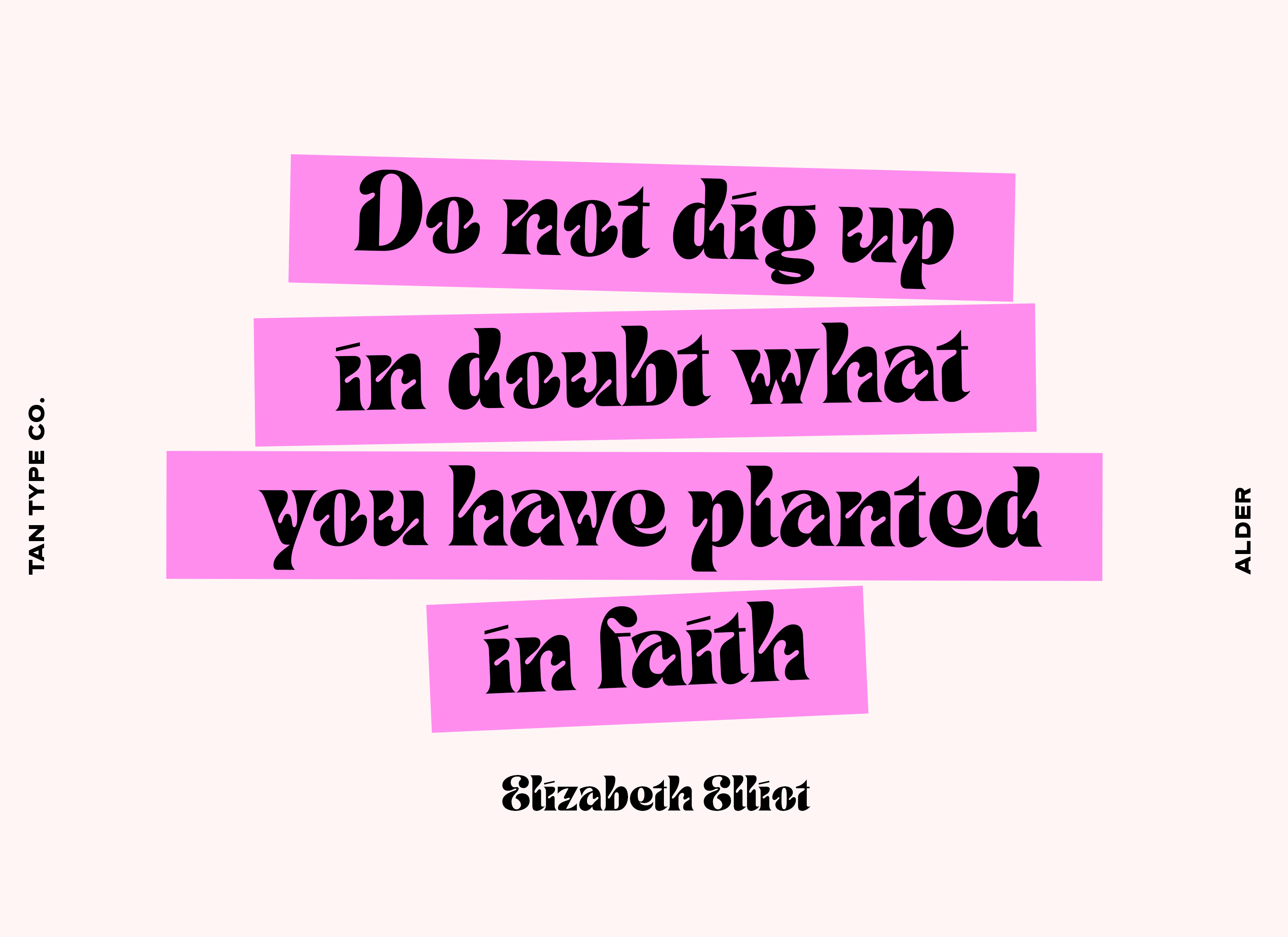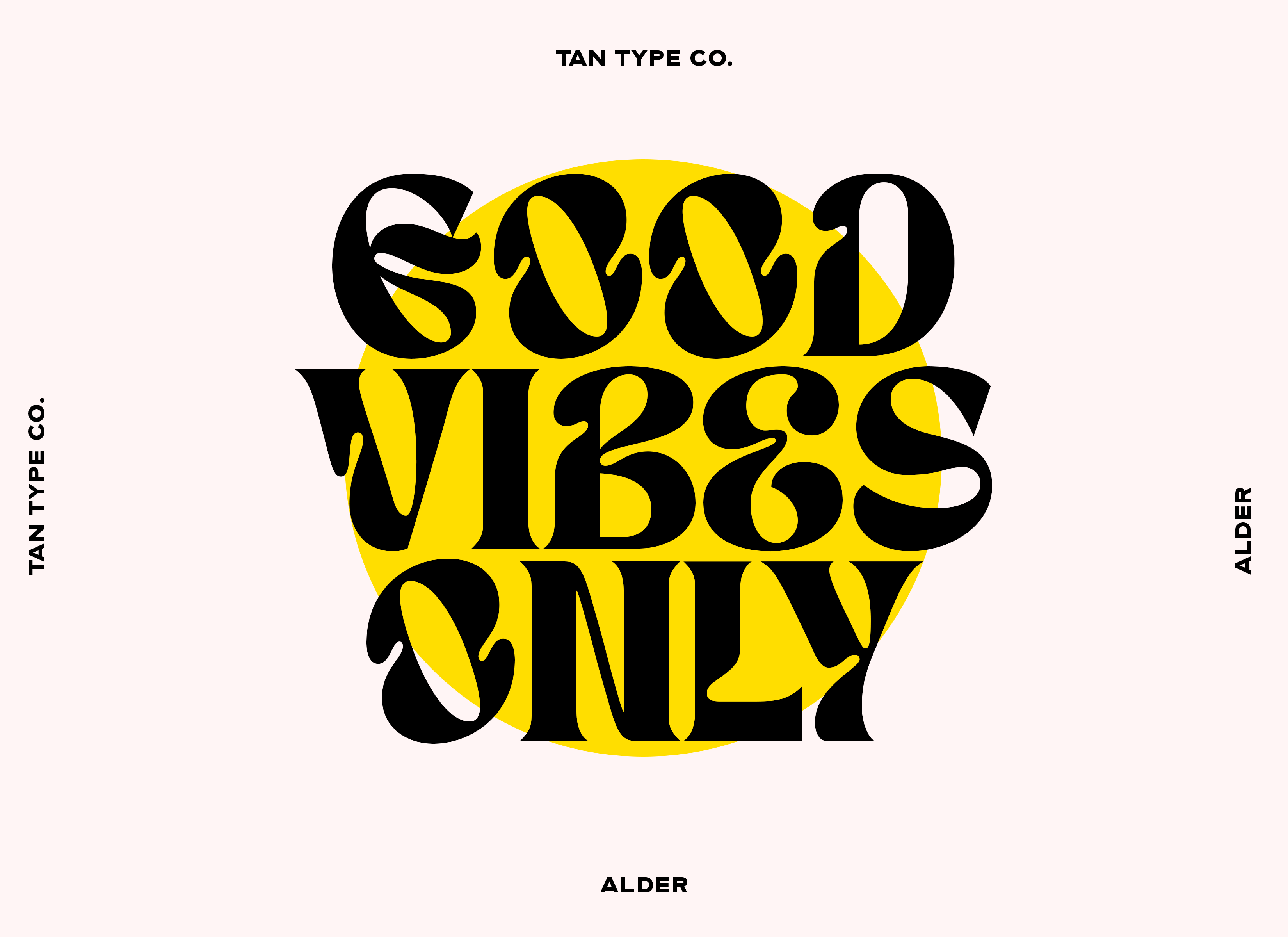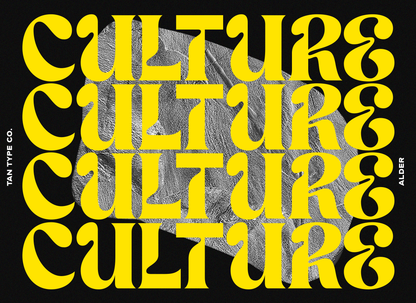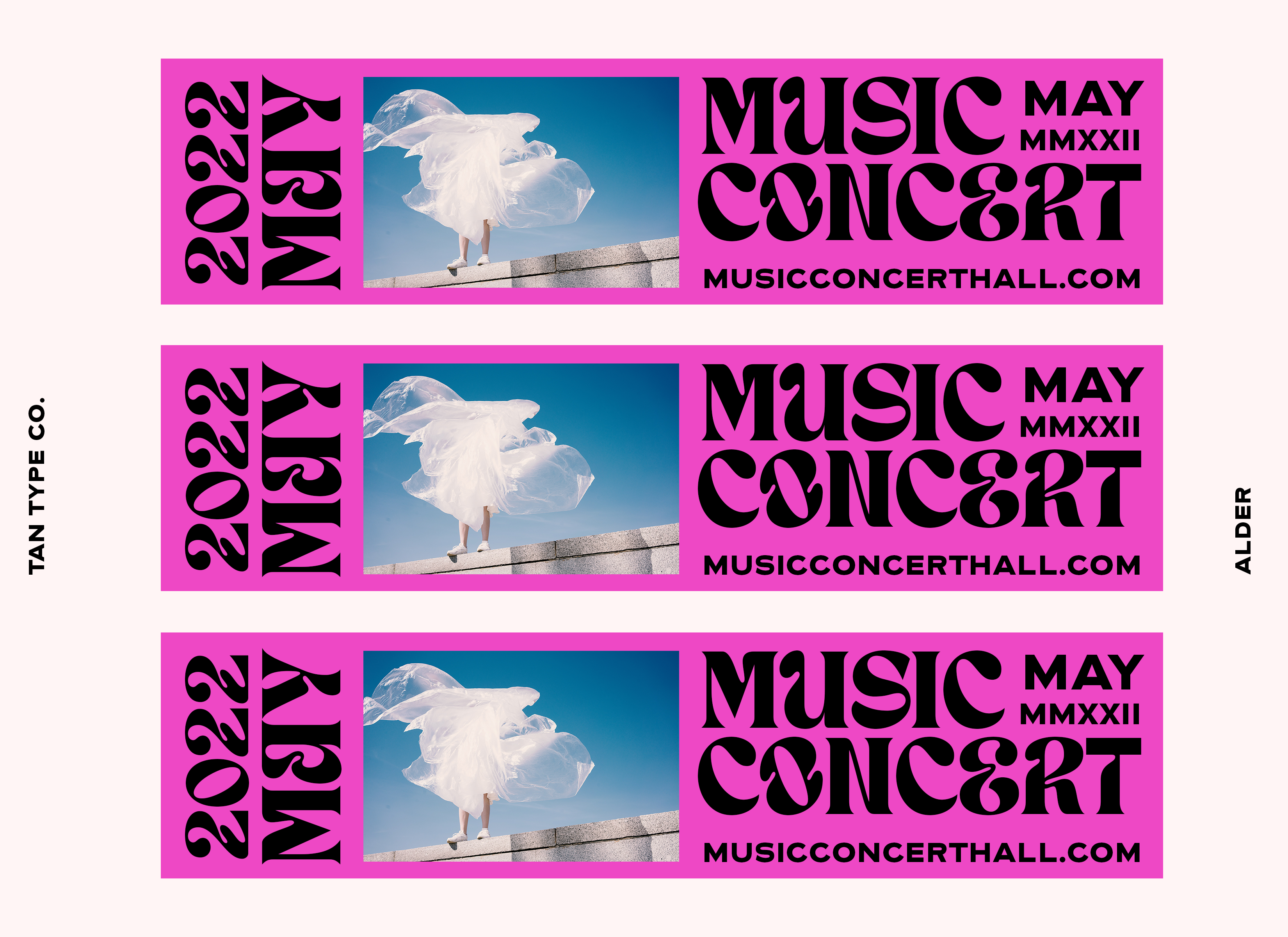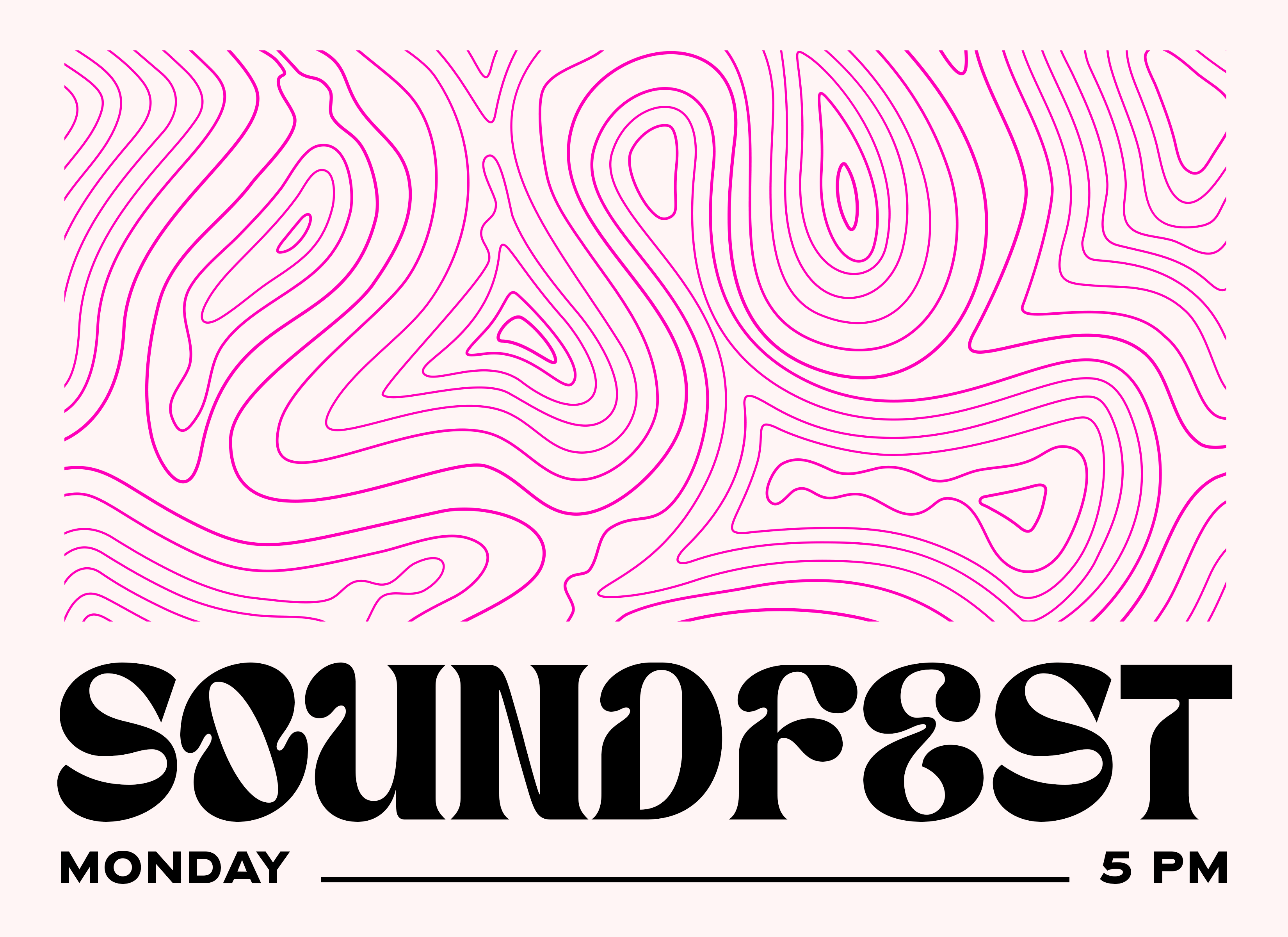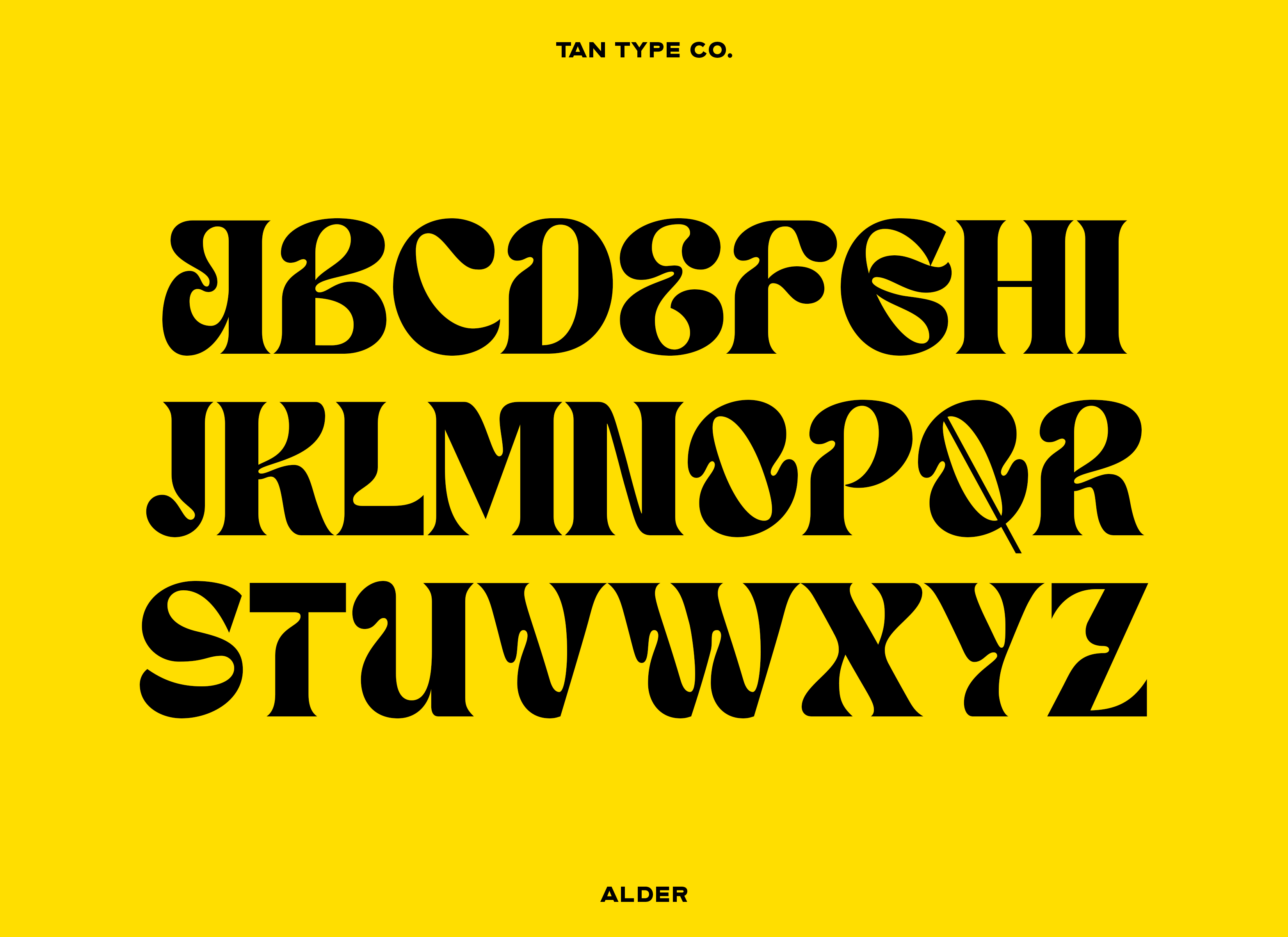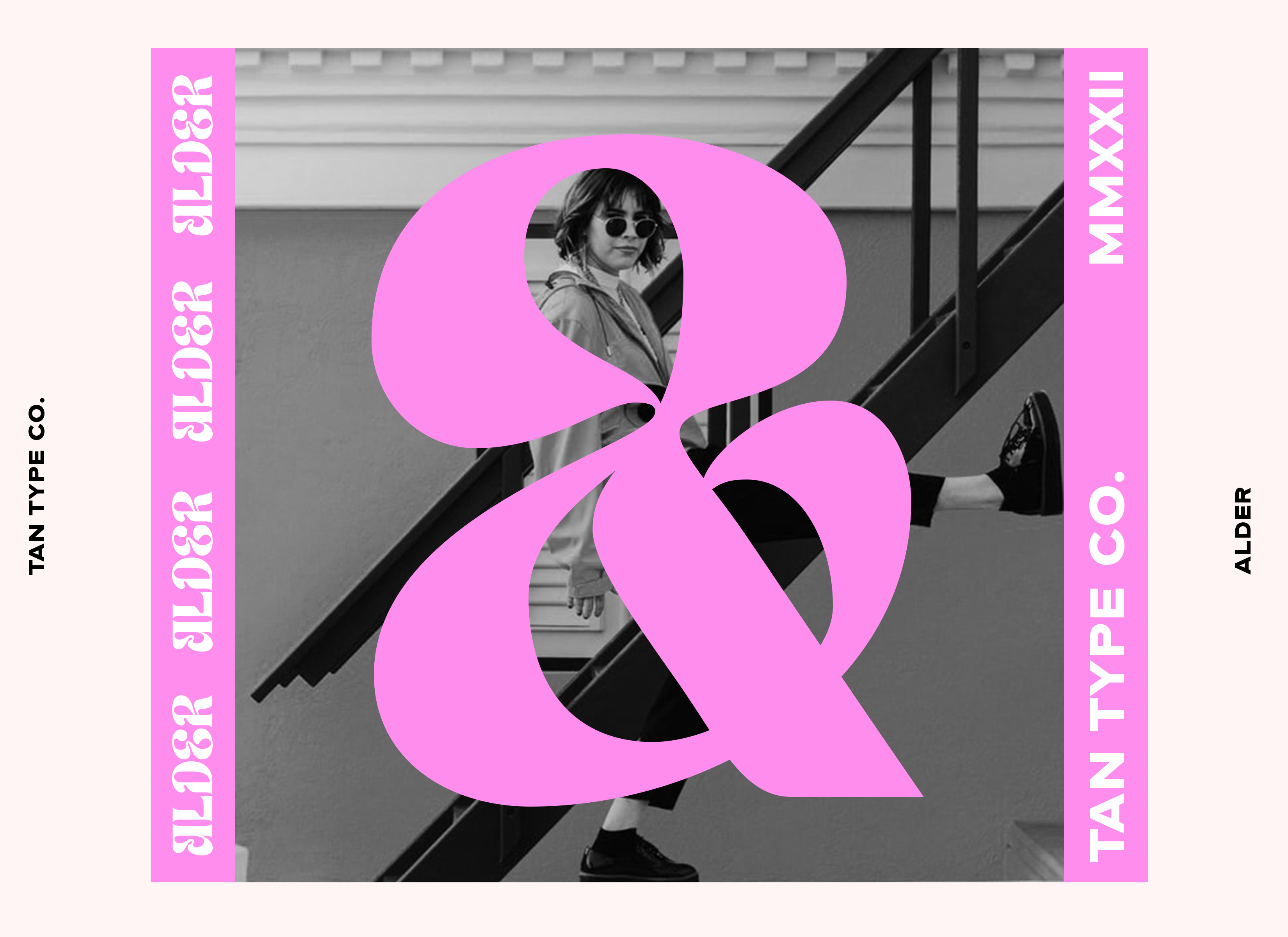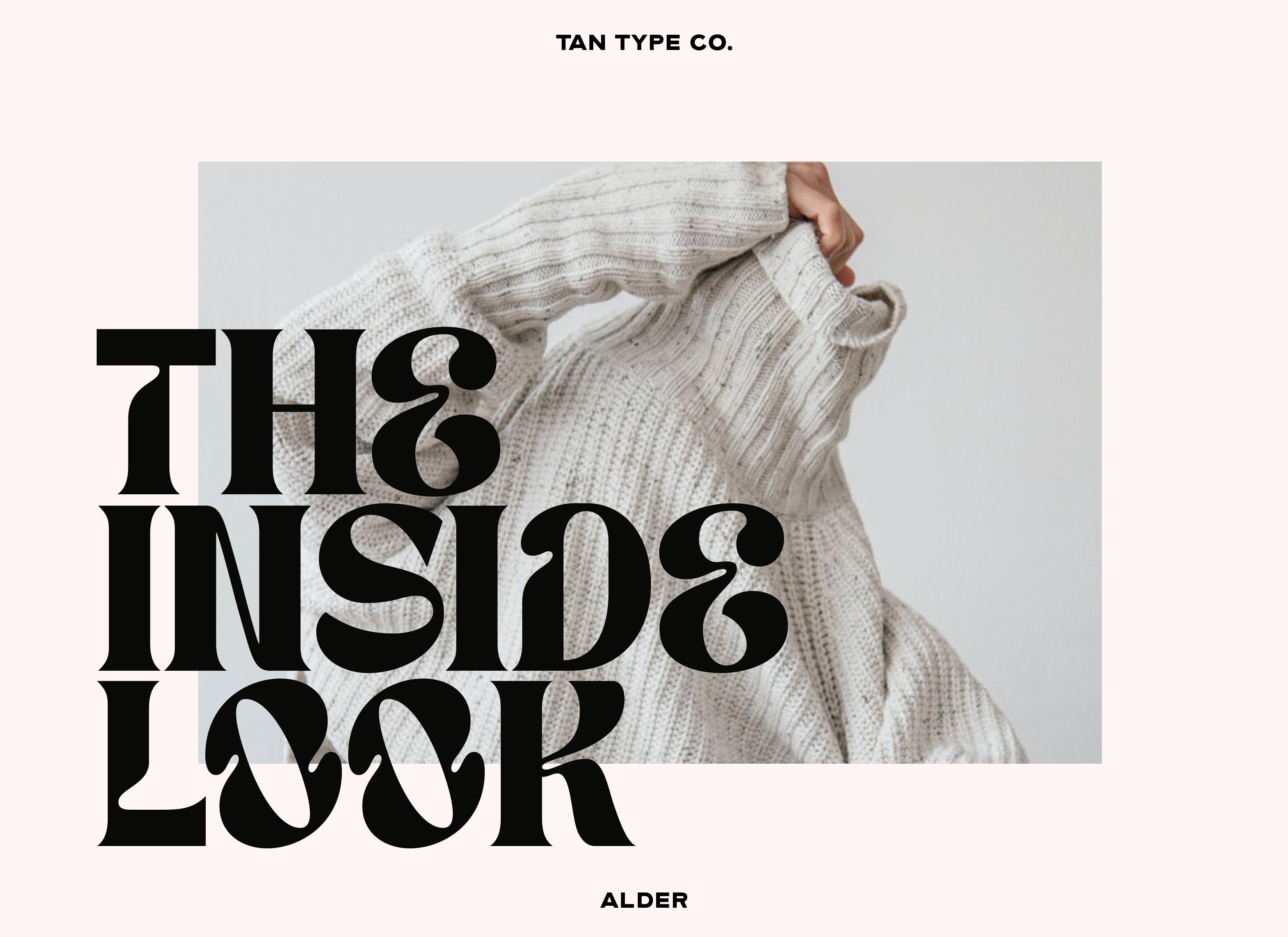
ALDER is a bold and whimsical display typeface with dramatic curves and playful energy. Its chunky serifs and exaggerated letterforms create a striking visual rhythm, while the sharp contrast and vibrant personality give it a fresh, eye-catching edge rooted in retro charm.